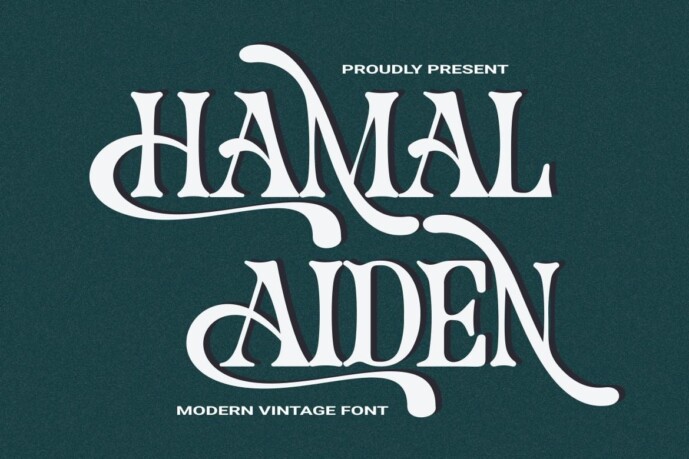
Hamalaiden Font
Introducing our new product Hamalaiden – Modern Vintage Font Modern Vintage Fon
Hamalaiden – Modern Vintage Font – Introducing Hamalaiden, a font that epitomizes modern luxury and elegance. Designed to elevate your brand, Lavish combines contemporary style with timeless sophistication, making it perfect for logos and high-end branding projects